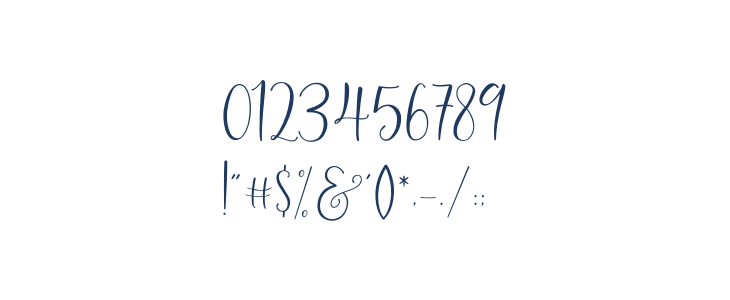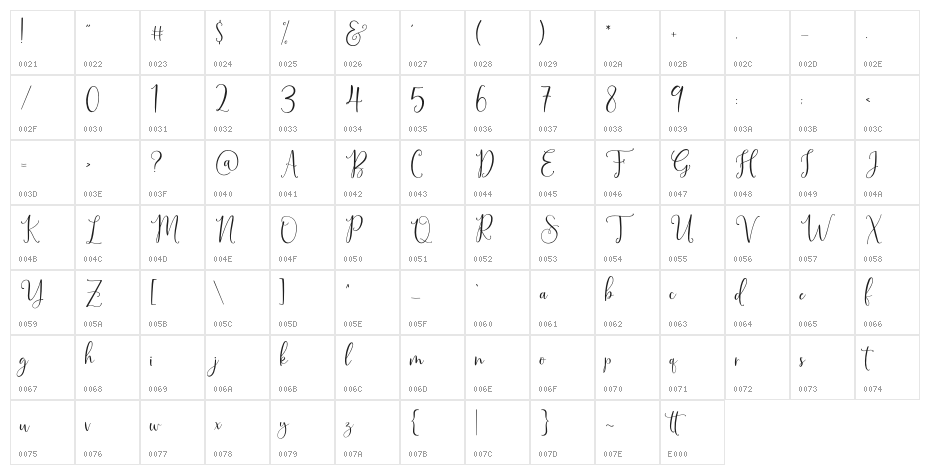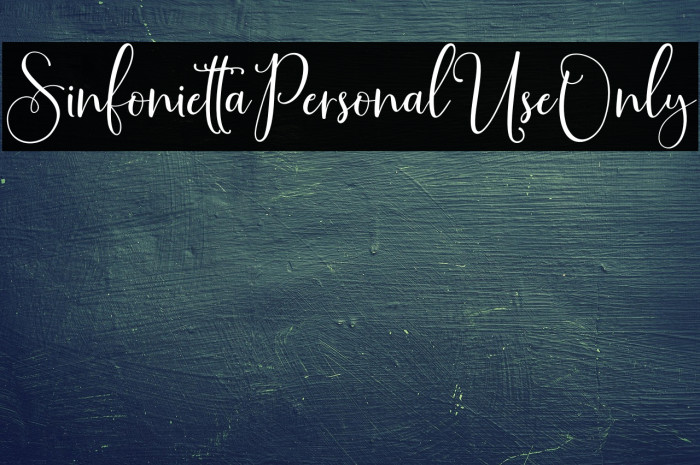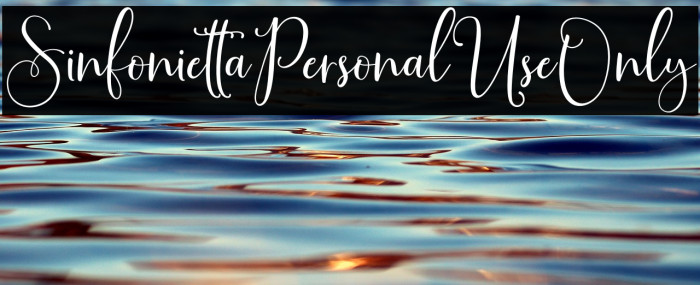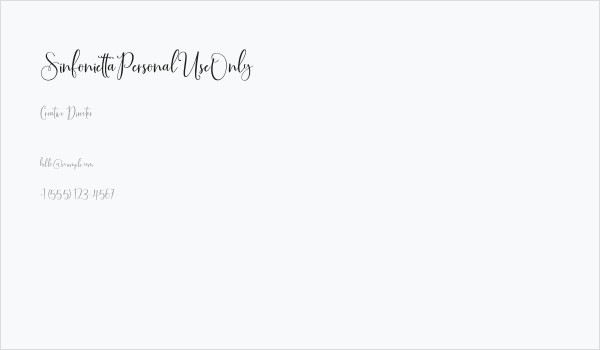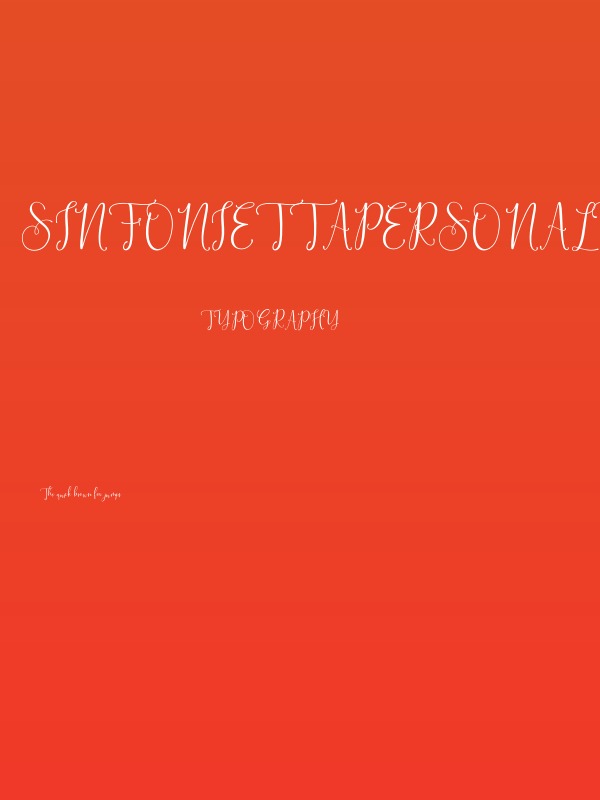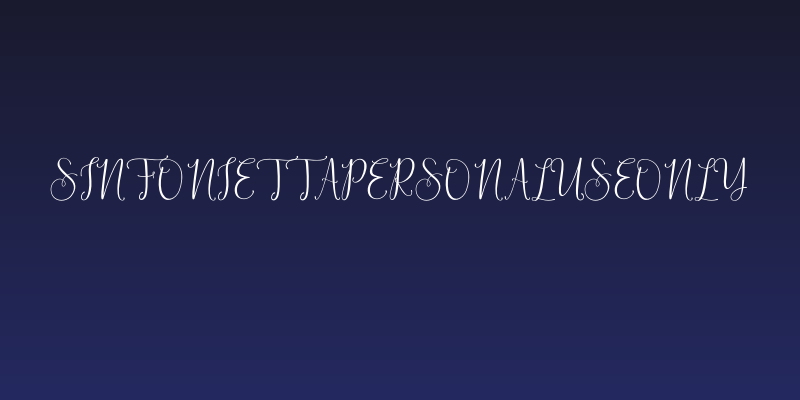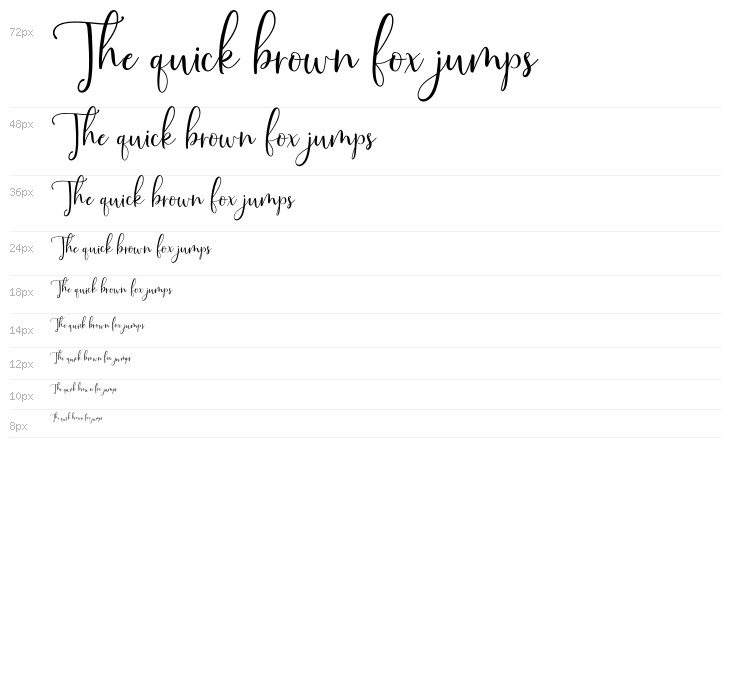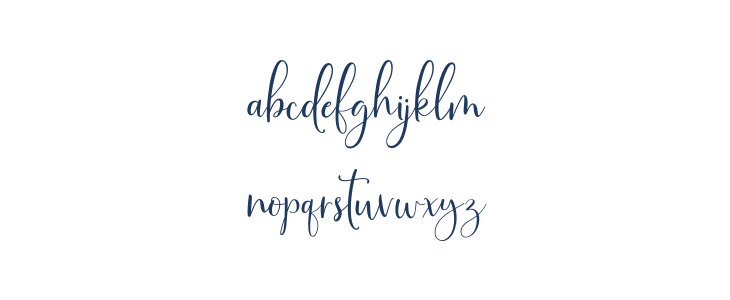
SinfoniettaPersonalUseOnly Font
SinfoniettaPersonalUseOnly Description
This font features an elegant and flowing script style, characterized by its graceful curves and loops. The uppercase letters exhibit a sophisticated flair with extended strokes and delicate swashes, while the lowercase letters maintain a consistent fluidity, enhancing the overall aesthetic. The numerals are stylishly crafted, complementing the alphabet with their smooth, rounded forms. Special characters are thoughtfully designed to match the font's elegant theme. This font's artistic nature makes it suitable for creative and decorative applications, providing a touch of refinement and charm.